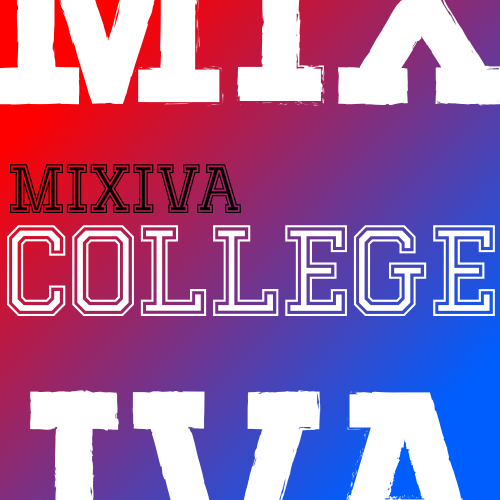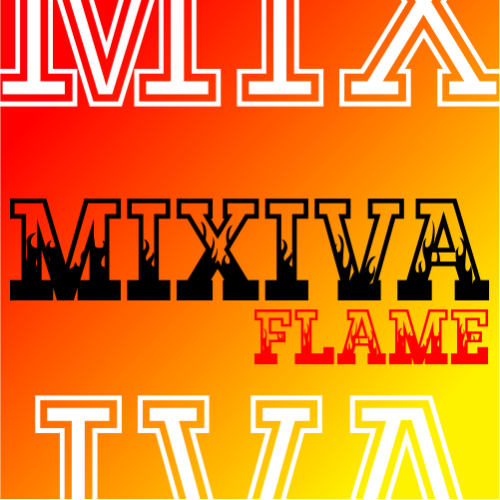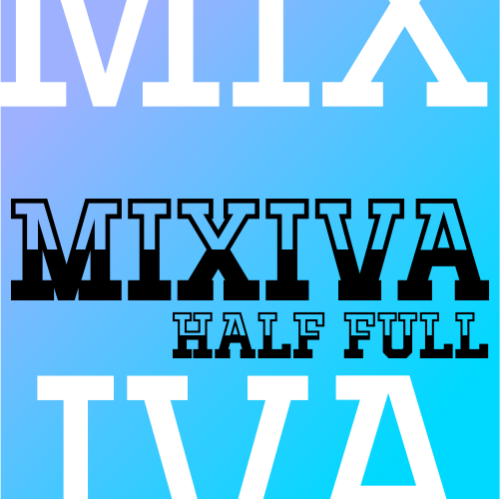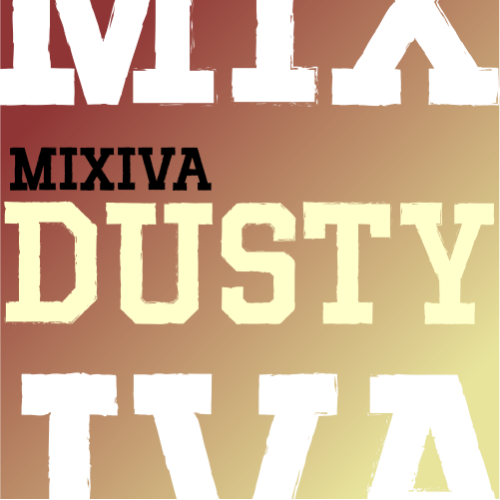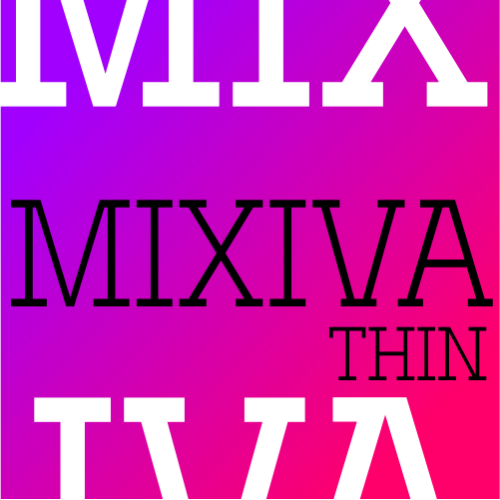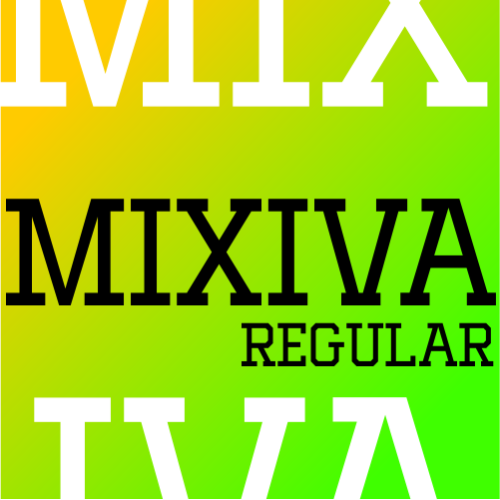
MIXIVA Slab Serif Display Typeface
Designed by Mehmet Abacı, MIXIVA is a bold and expressive slab serif type family built for strong visual impact.
Each style delivers a unique personality while preserving the same solid typographic structure.
College features a dramatic shadowed construction, perfect for posters, sports branding, and vintage-inspired headlines.
Dusty introduces a destroyed, worn texture that adds grit and authenticity to designs that demand character.
Flame carries internal flame details, making it ideal for music, event posters, and rebellious visual identities.
Half Full combines filled and hollow letterforms, creating striking contrast and modern graphic rhythm.
Light and Thin offer cleaner, more minimal interpretations while retaining the powerful slab serif backbone.
MIXIVA is best suited for logos, headlines, packaging, apparel, posters, and any project where typography must stand out and speak loud.
MIXIVA Font Family